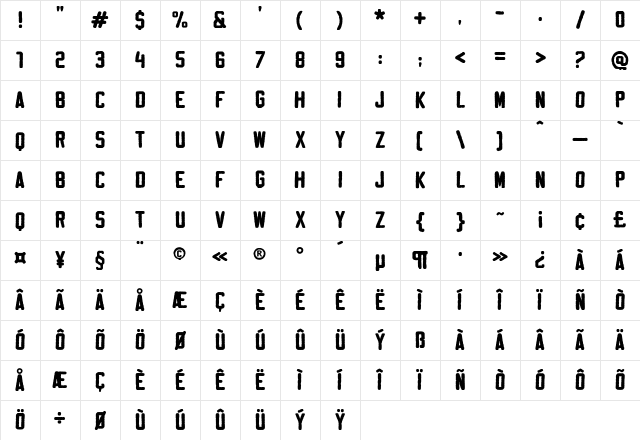
Complete Sablon Washed Normal glyph index. Displaying only characters natively supported by Sablon Washed Normal font.
Sablon Washed is a composed and adaptable typeface that performs quietly and consistently across a wide range of design contexts.
Who designed the Sablon Washed Normal font?